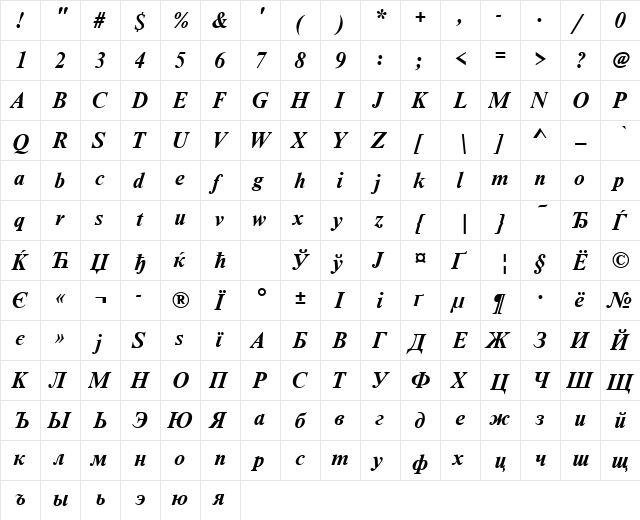
NimbusRomDCY Bold Italic
Design Context for NimbusRomDCY Typeface
NimbusRomDCY is a composed and adaptable typeface that performs quietly and consistently across a wide range of design contexts. The slanted form adds forward momentum and visual energy. Its bold stroke weight gives it real presence on the page.